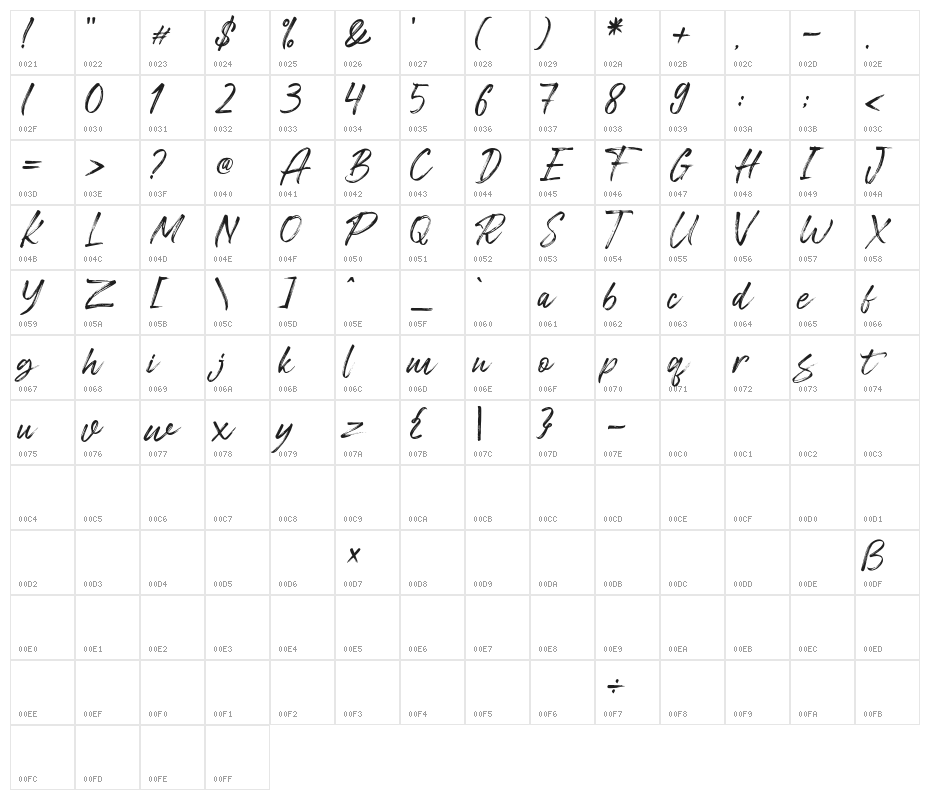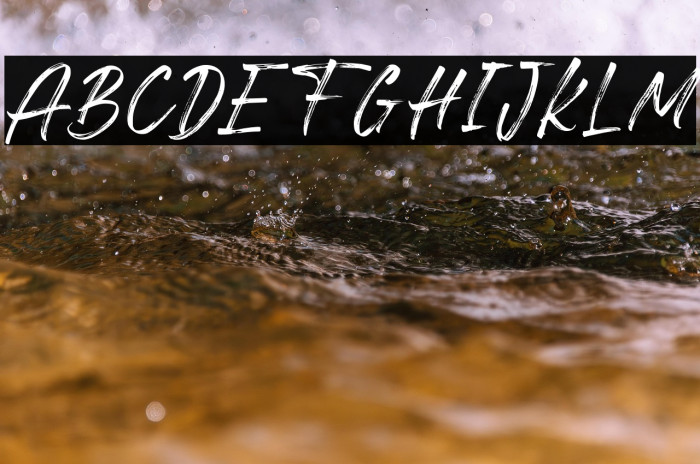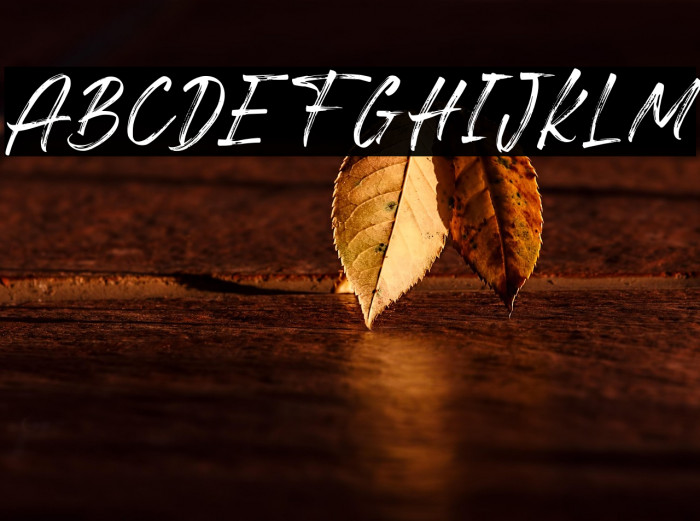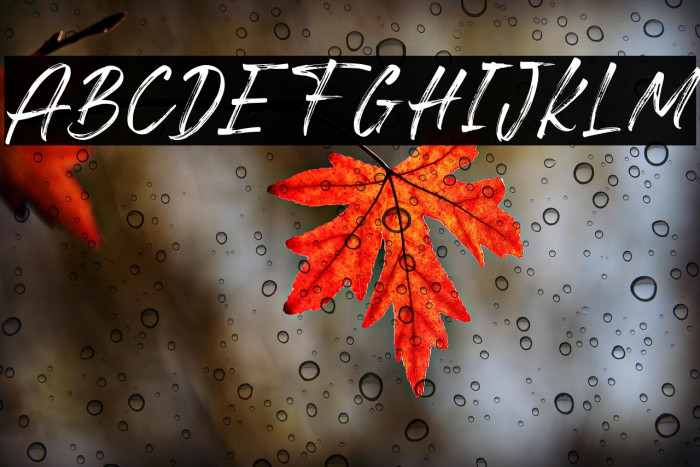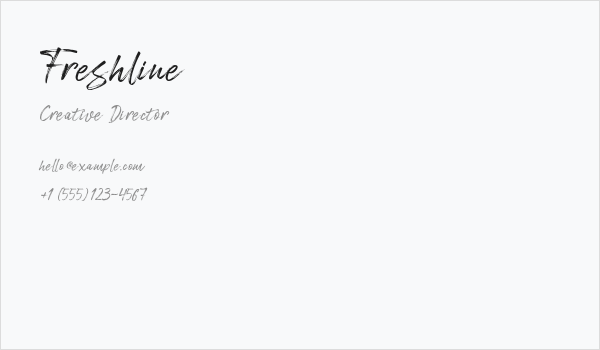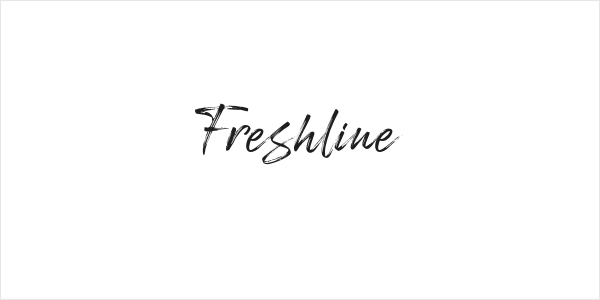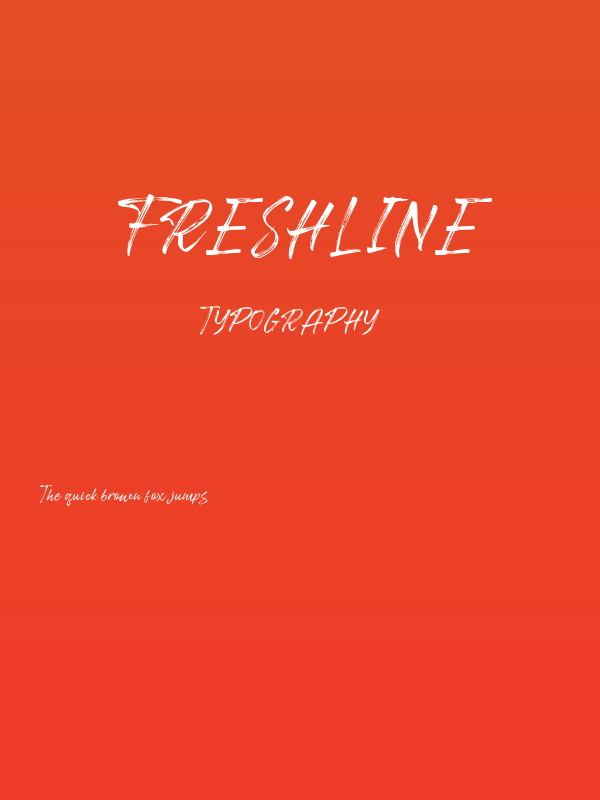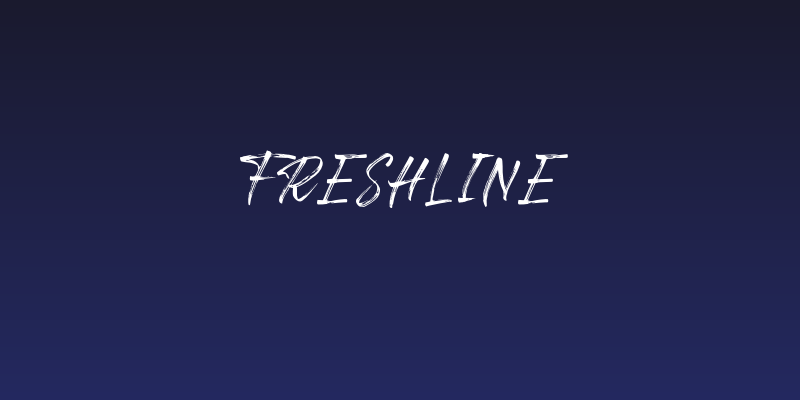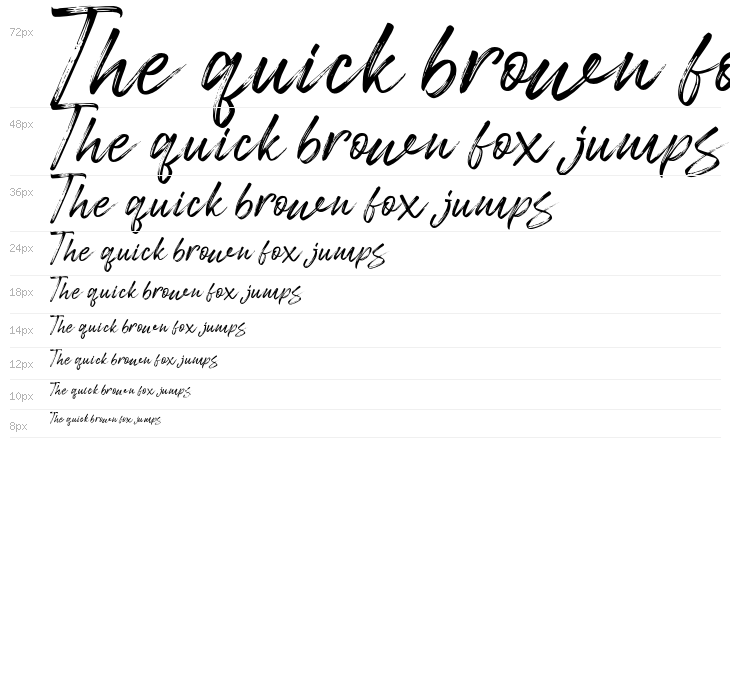
Freshline Font
Freshline Description
This font features a dynamic and expressive handwritten style, characterized by its fluid strokes and energetic appearance. The letters are slightly slanted, giving a sense of motion and spontaneity. The uppercase and lowercase letters maintain a consistent flow, with varying stroke widths that add a lively texture. The numerals and special characters are crafted with the same attention to detail, ensuring a cohesive look across all elements. This font's artistic flair makes it suitable for projects that require a personal touch or a creative edge.